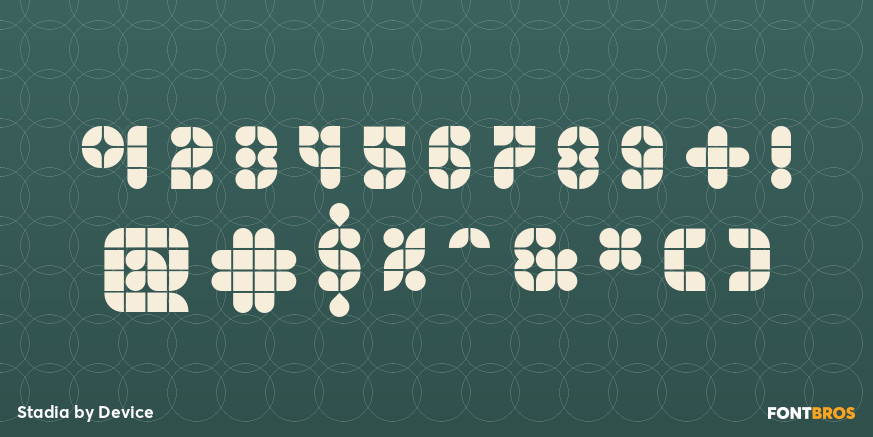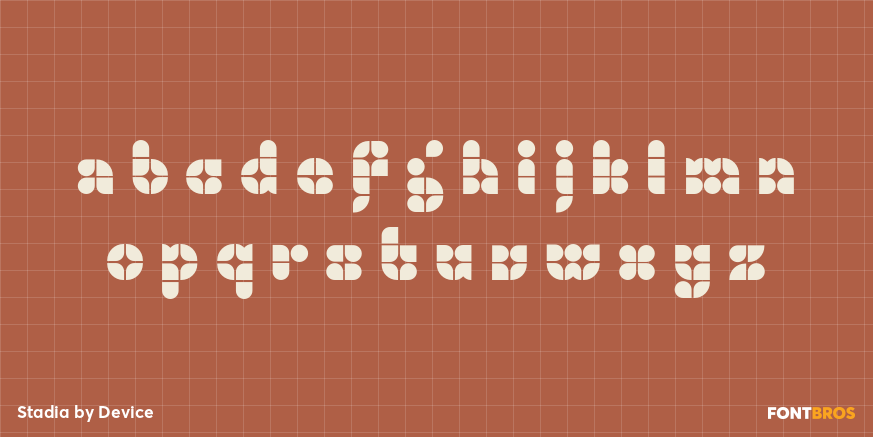
Stadia
Font Family by Device
Stadia is designed around a series of modular units: quartercircles, teardrop shapes, squares, circles and variations thereon. The versatility of these basic shapes is such that a teardrop, for example, can represent a looped bowl, as in the lower part of the a, while also representing a curved arc at the top of the same character. The strict grid is broken for the T and the Y, and the placement of accents. The alternative – basing a T, for example, across three units – though rational, is far less aesthetically pleasing. As always with type design, one has to know when the internal structural rules should be bent for a more beautiful result. The horizontal lines appear to travel through the letters, bursting into stars in the counters of lower-case characters such as the o and p. The outline version is weighted to the same width as the gaps between the units.